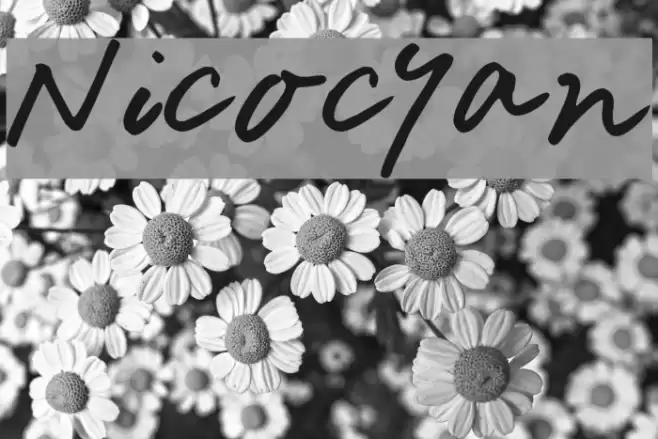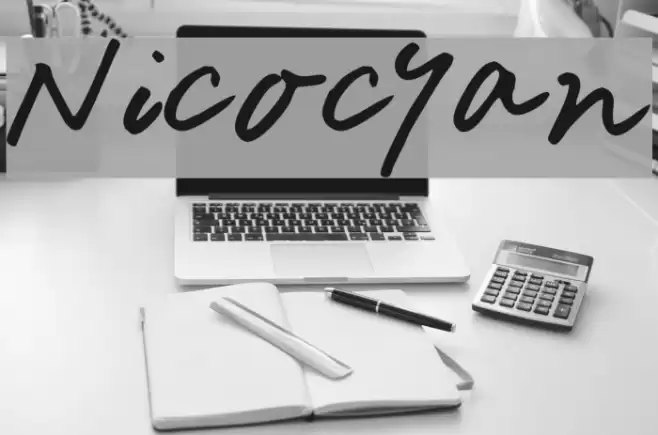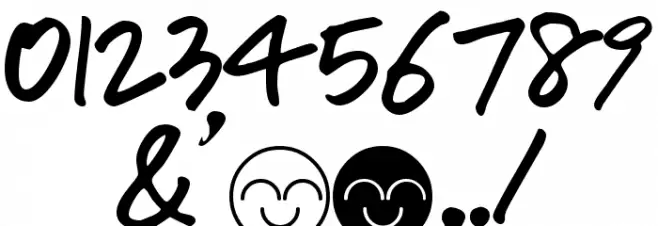
Nicocyan Font
Nicocyan Description
This font exudes a lively and dynamic handwritten style, characterized by its fluid and slightly irregular strokes that mimic natural handwriting. The uppercase letters are bold and confident, while the lowercase letters maintain a casual and approachable feel. The numbers are distinct and easy to read, with a playful touch that complements the overall style. Special characters are included, adding versatility to the font. The strokes vary in thickness, providing a medium contrast that enhances readability while maintaining an artistic flair.
A lively handwritten font with fluid strokes and medium contrast from Uncategorized fonts.
- Proposed Projects: Ideal for creative projects such as greeting cards, invitations, personal branding, and social media graphics.
- Overall Style: Casual, Artistic
- Use Case: Logos, Headlines, Invitations